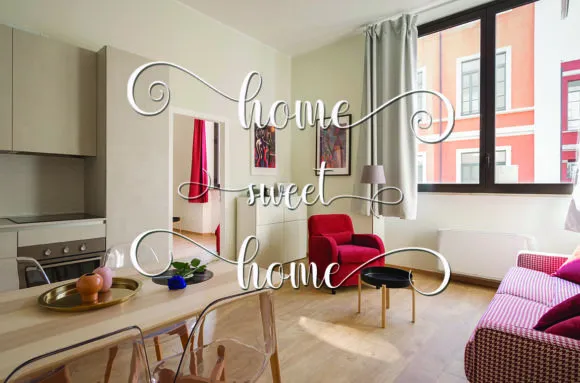
Pretty Home Font is enlivened by exemplary typography and carries its own one of a kind style to any plan project.
This content textual style is PUA encoded which implies you can get to the wonderful glyphs in general and swashes easily!